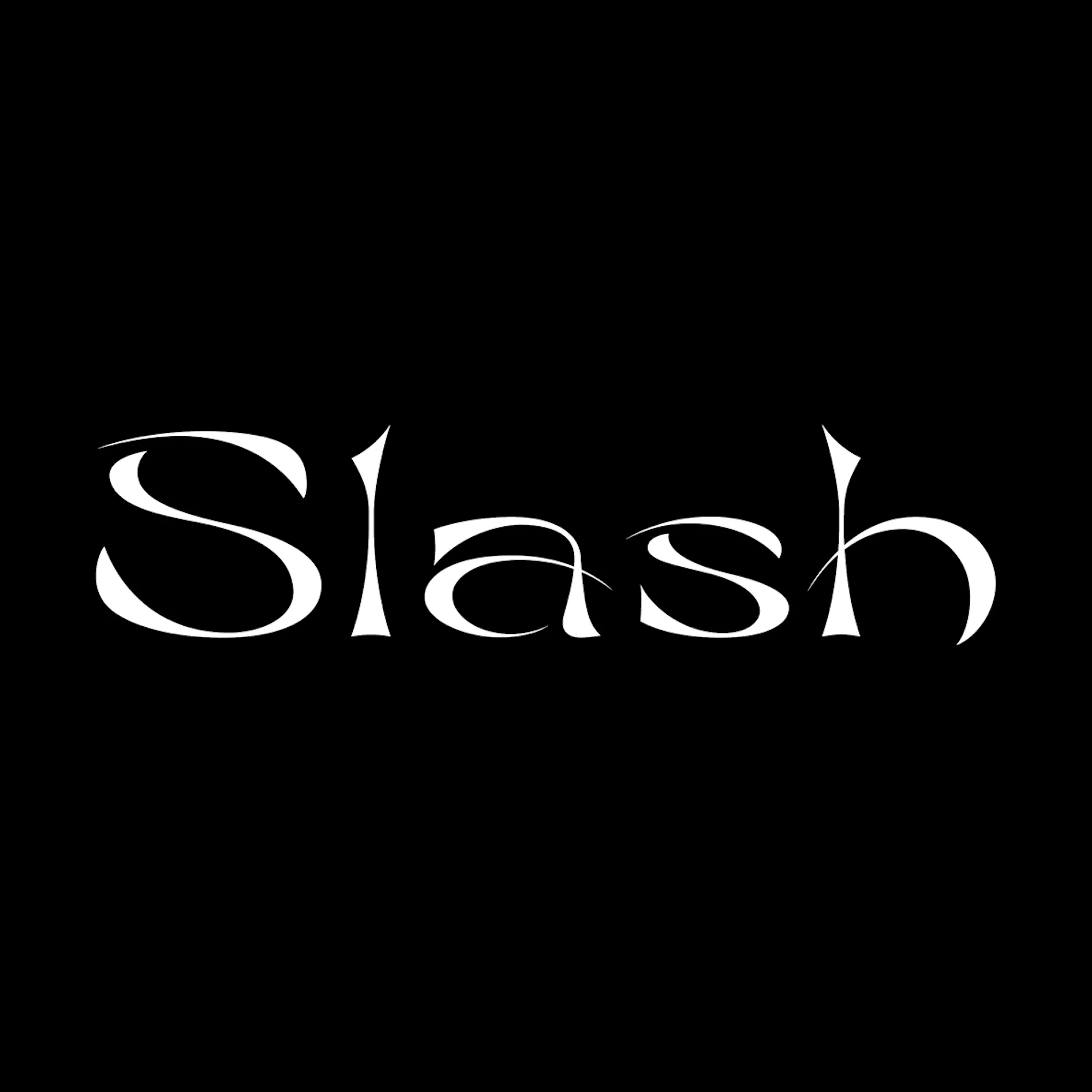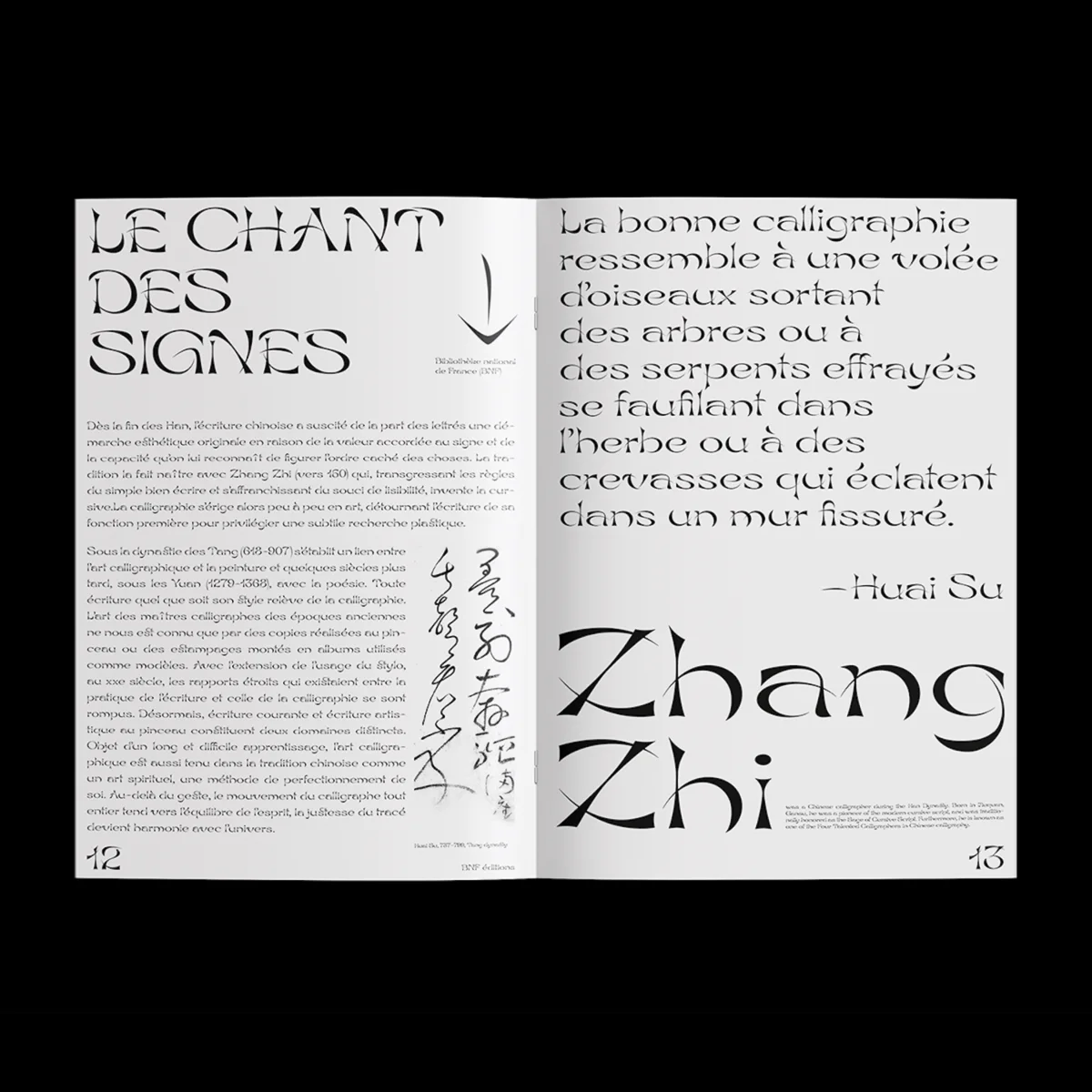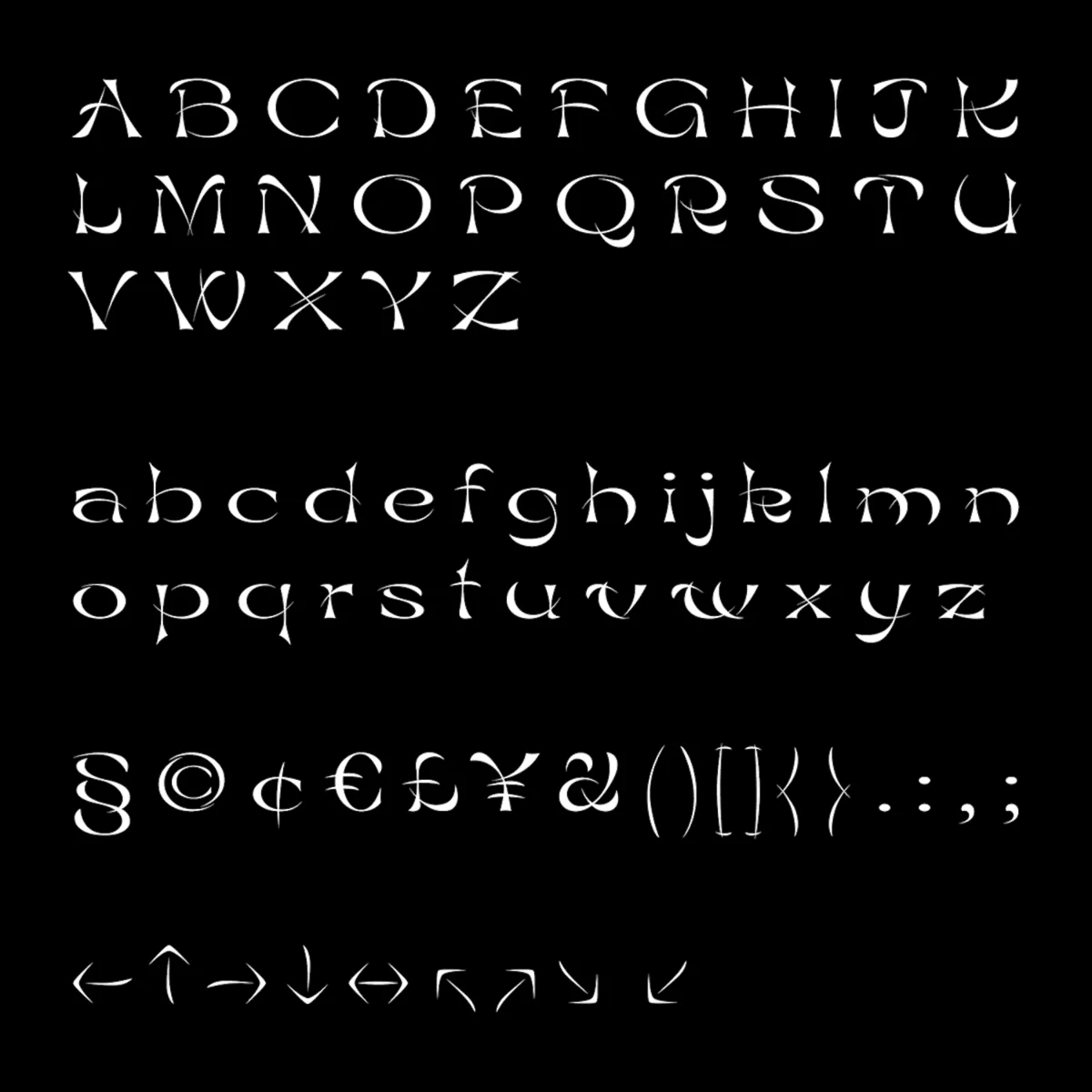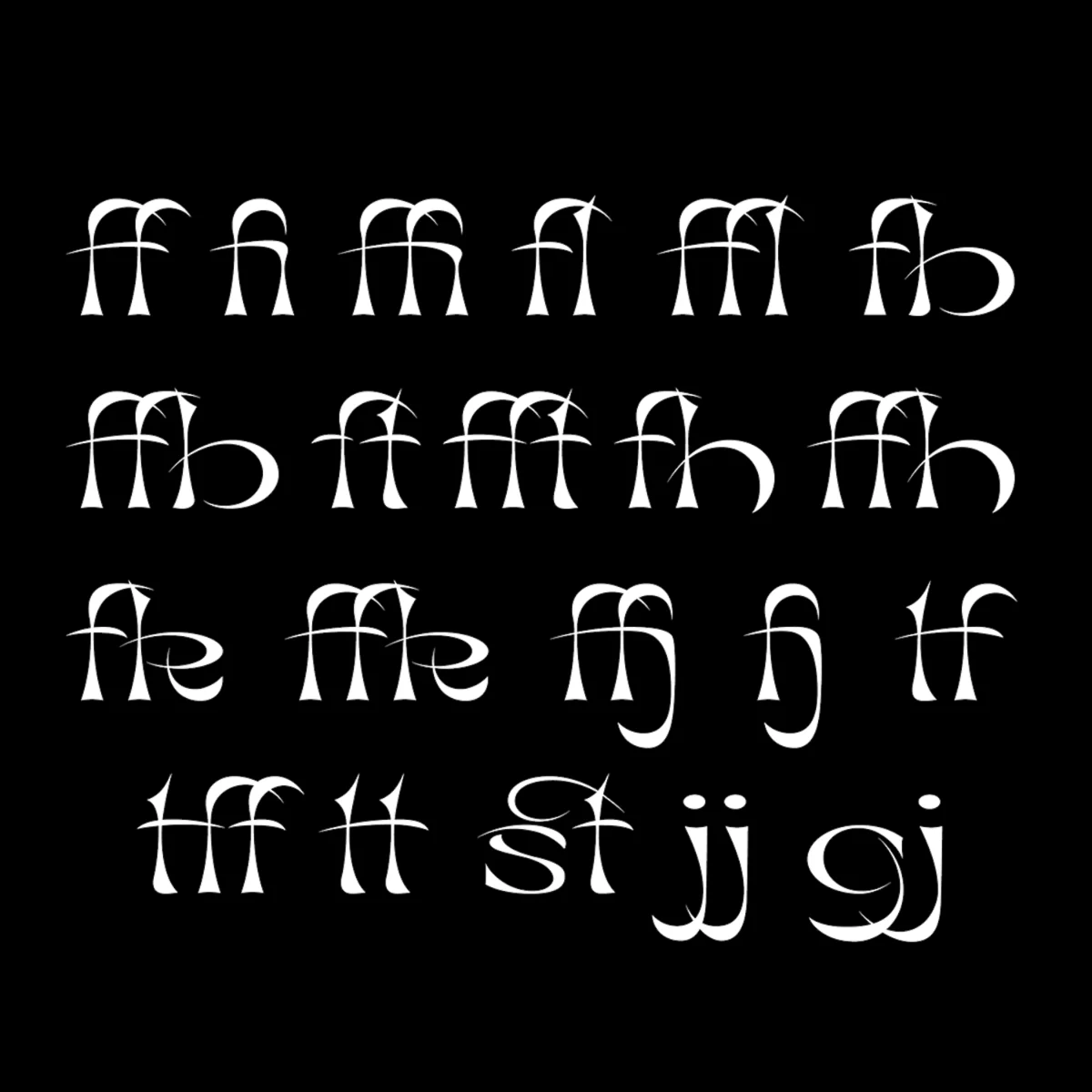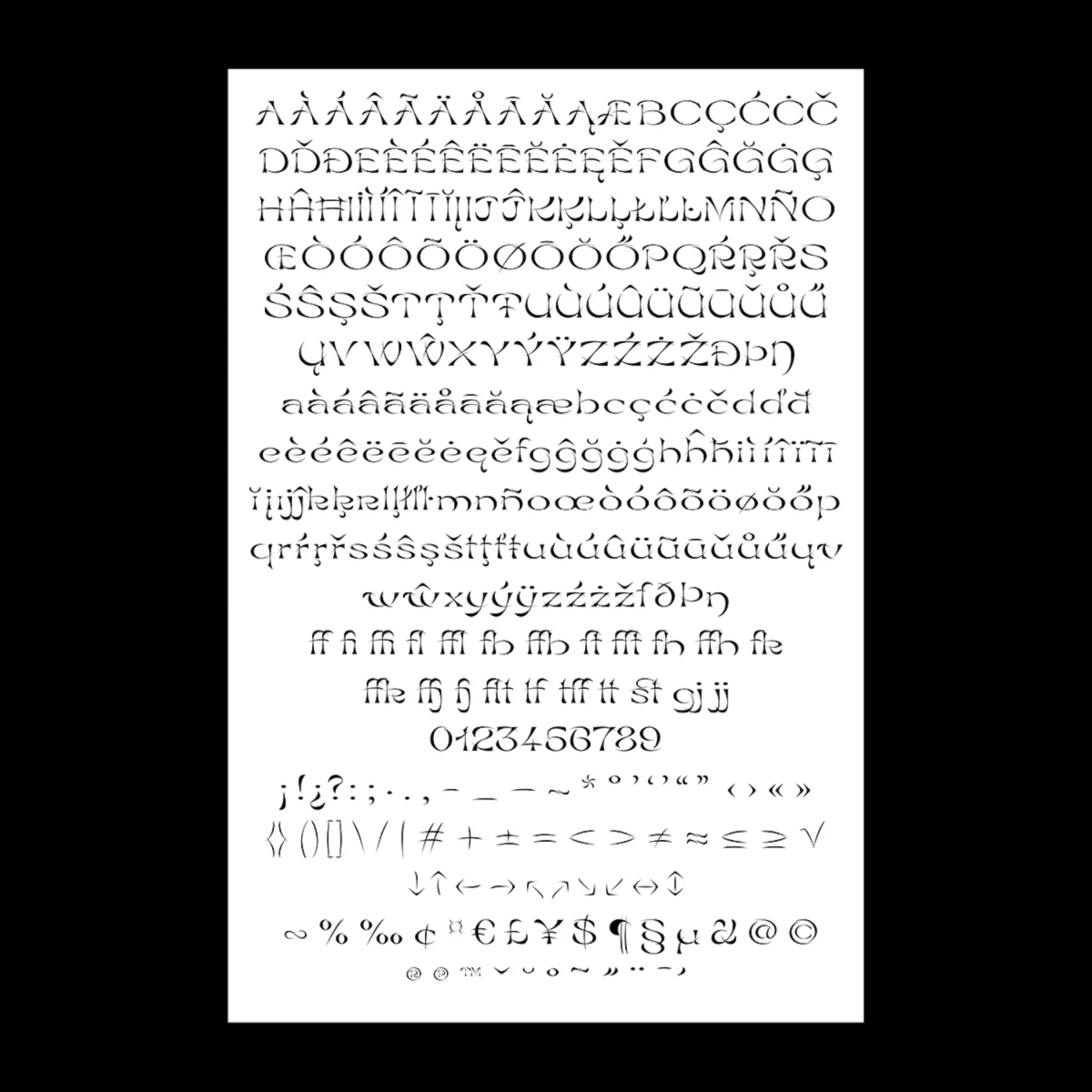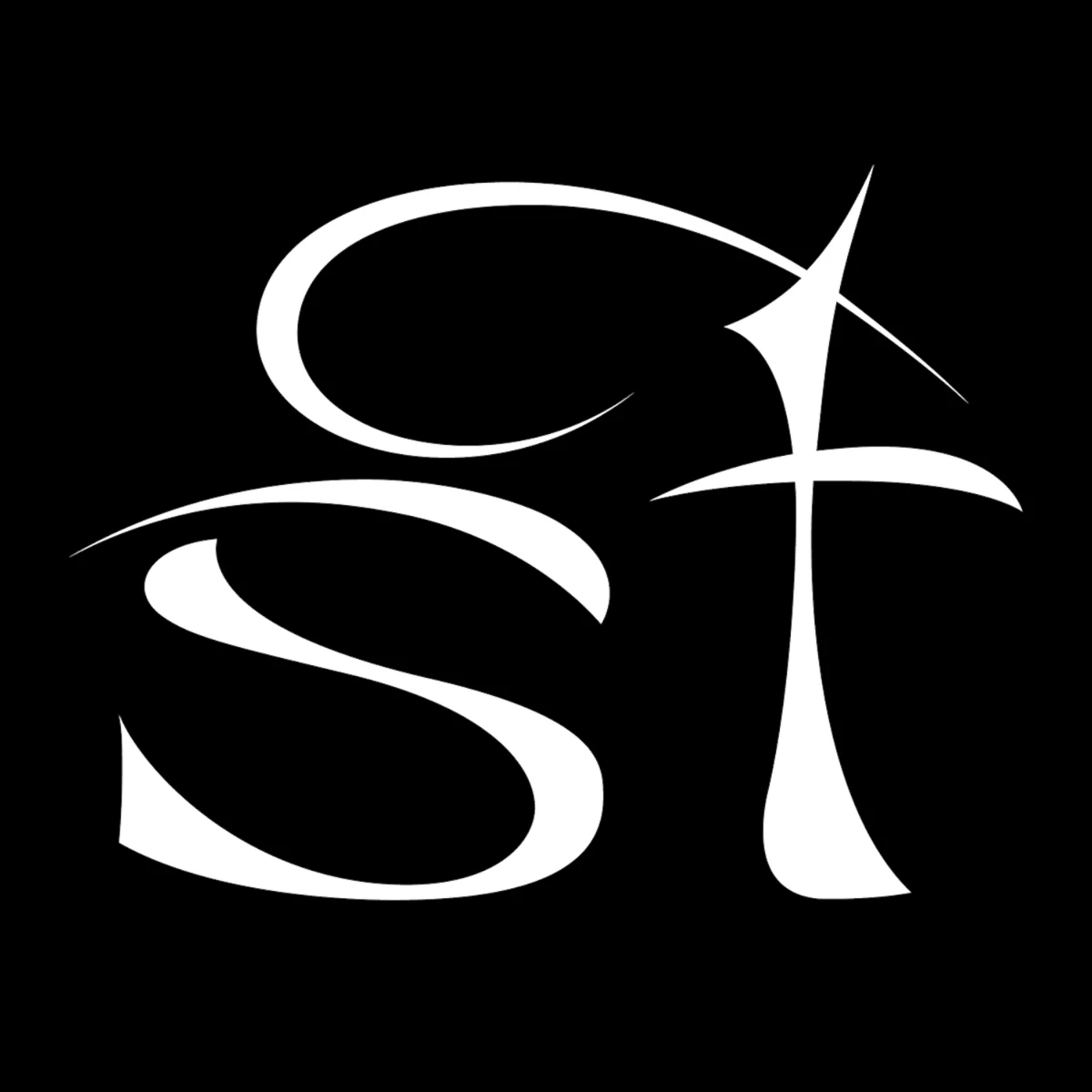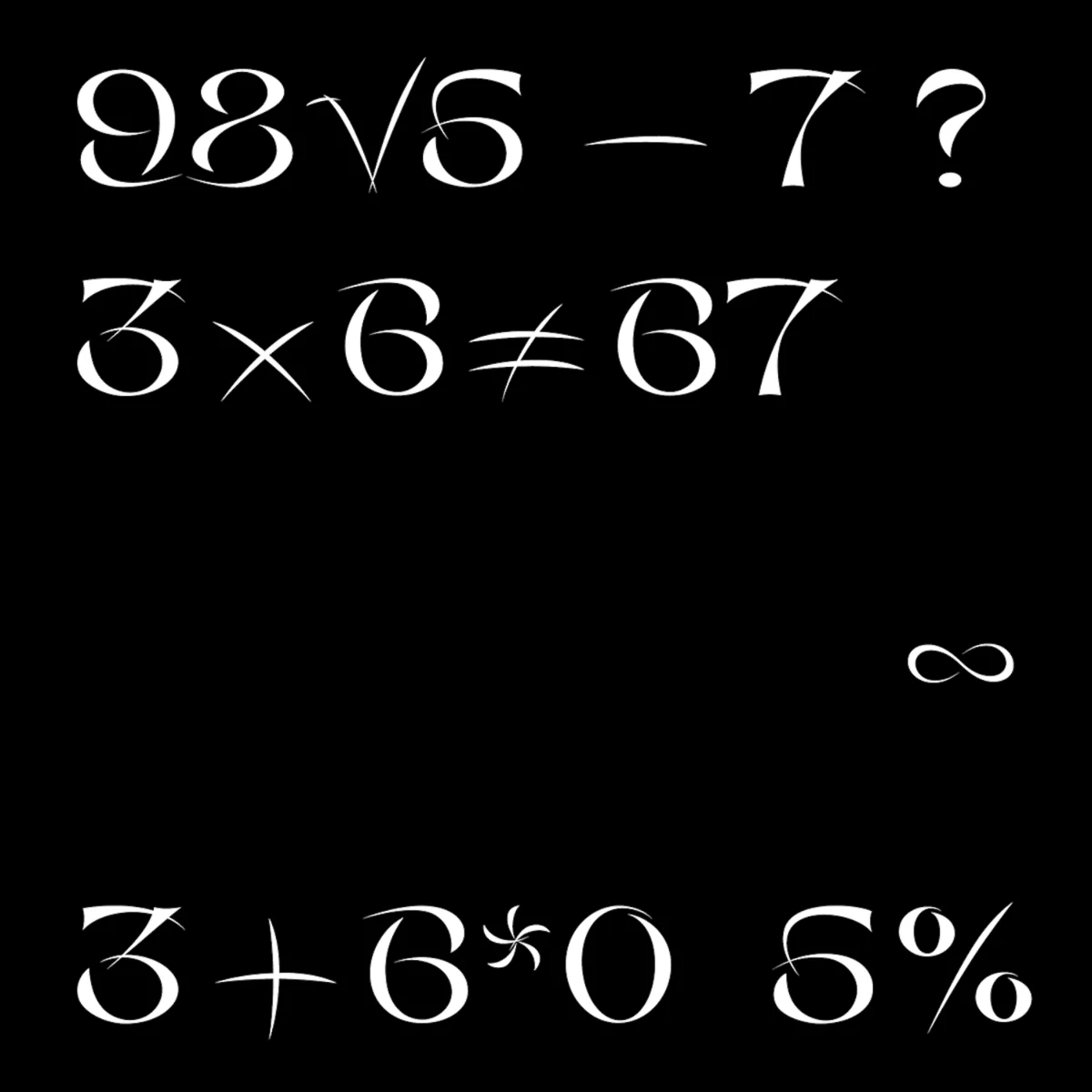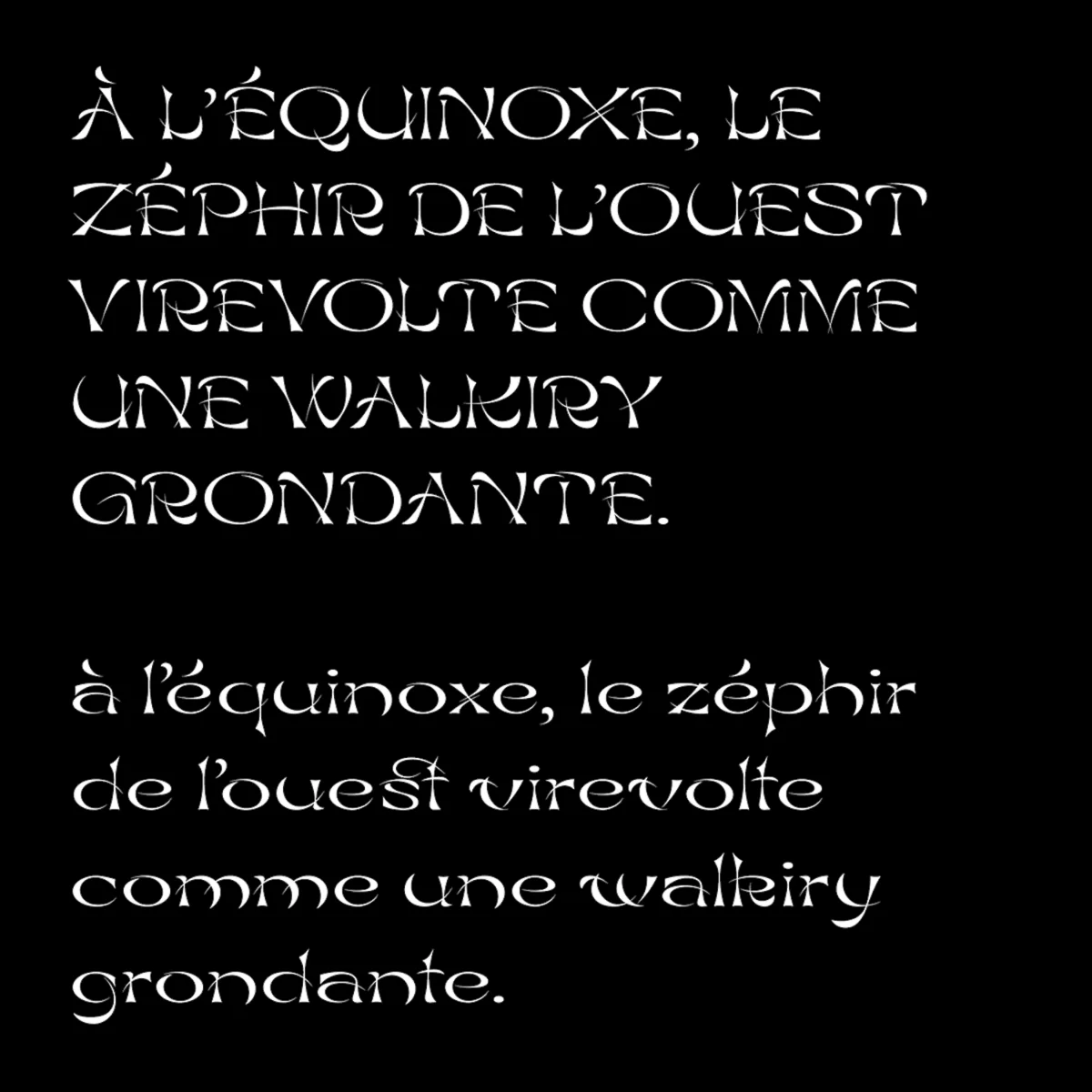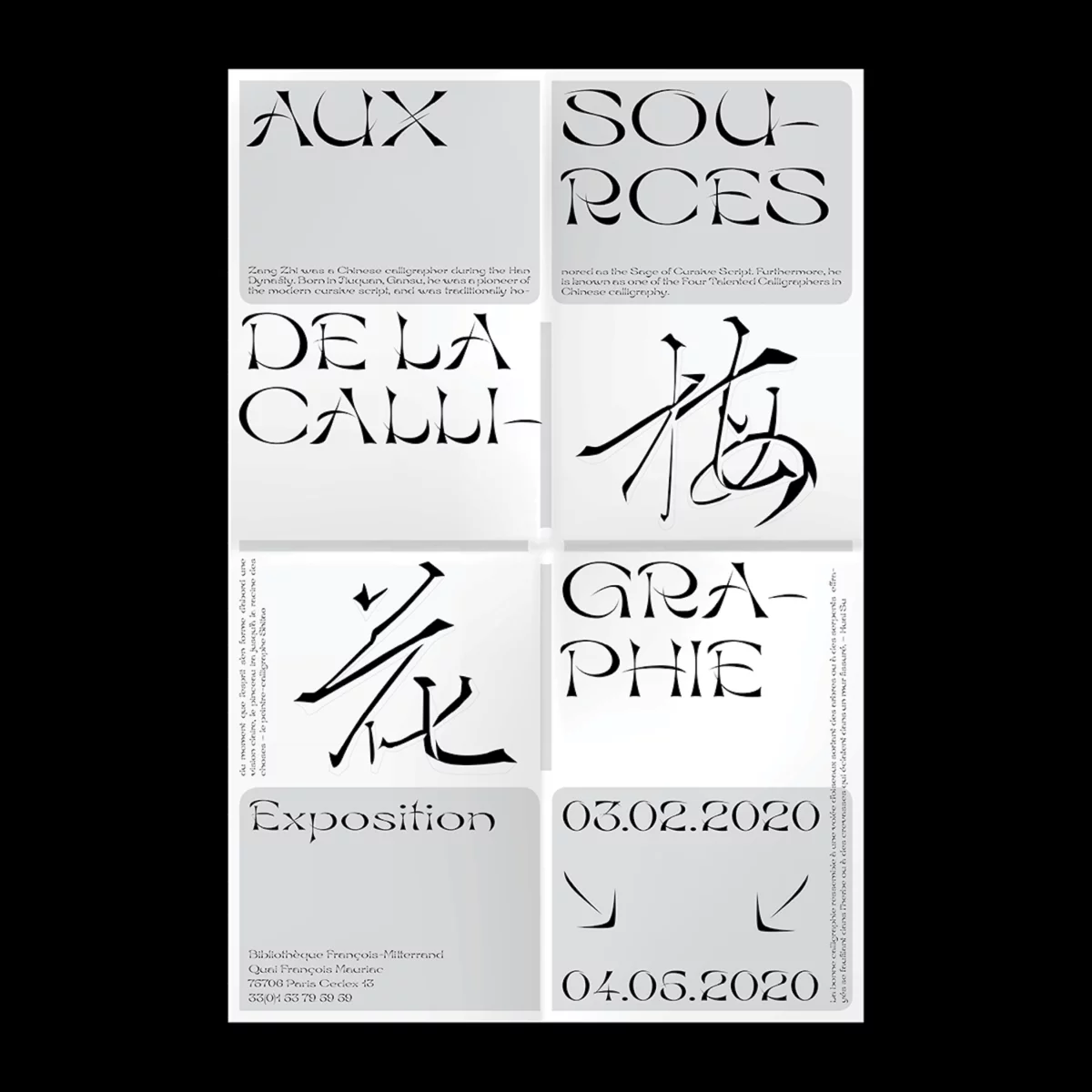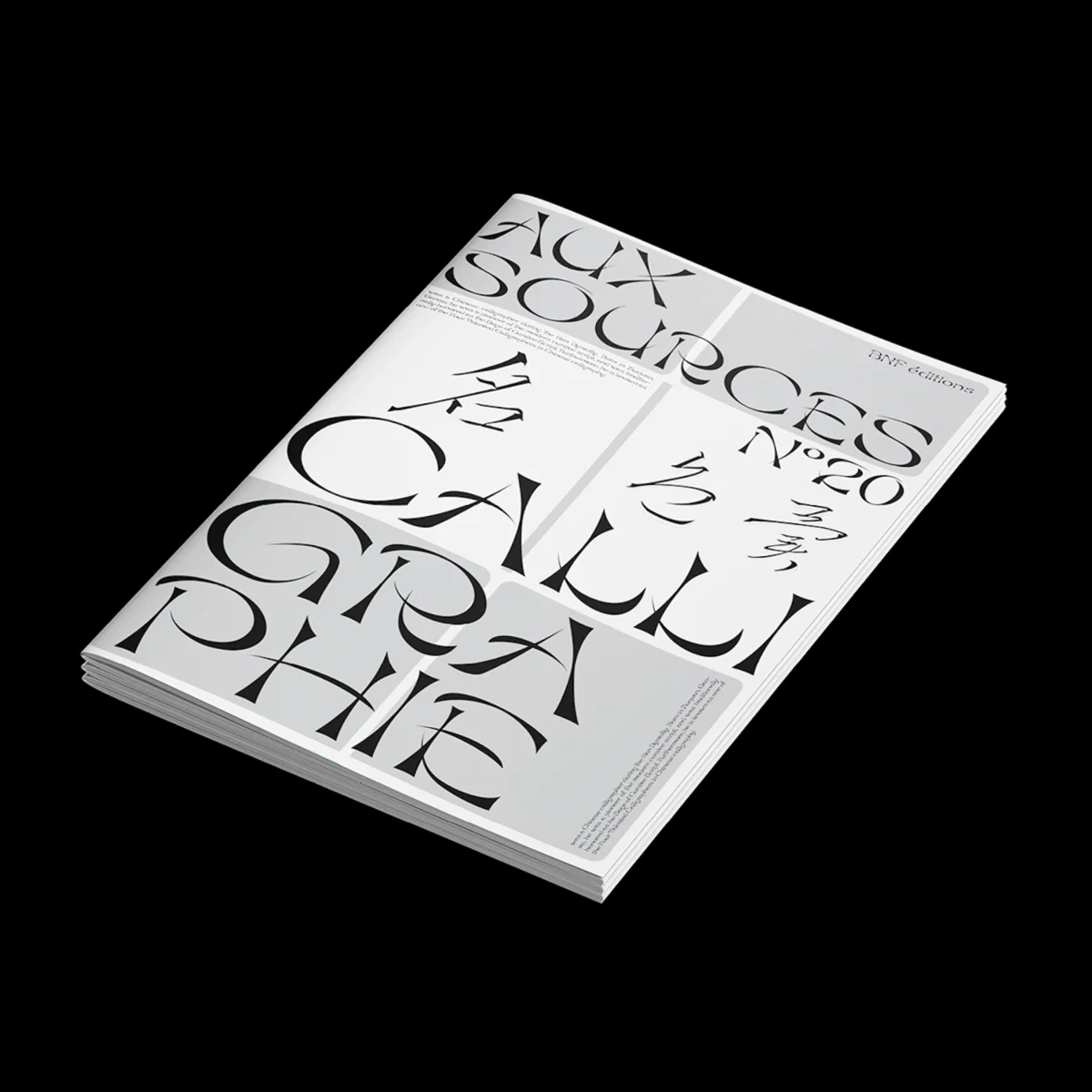
Independent Graphic Designer, Adrien Jacquemet (@adrien.jacquemet) is the creator of the stunning font, Slash. As brand new release (now available through Type Department) it is currently produced in one singular style: Carved. A commendable design feat, Slash is a refined and energetic take on ancient craftsmanship in the digital age; tethering an imaginative rope between practices of Chinese calligraphy engravings on steles and the design sensibilities of today.
With the aim to translate the precarious and slightly unpredictable nature of hand carving, Slash is constructed through sharp edged, slanted, independent strokes which intersect and collide minimally to collect the shapes of the Latin alphabet. The curves of each stroke govern the aesthetic presence of Slash, imbuing it with the tactile energy of brush strokes and slivers of stone as they’re carved away; meaning its connection to the tactile past of ancient craftsmanship feels both sensitive and direct.
Slash doesn’t include any straight lines, nor a solid stem, and so visually, it relies very much on the minimal intersections between the strokes to string it together with coherence. It also means that there’s a real feeling of fluidity and liberation surrounding the font; it uses an extremely light touch to communicate a wealth of sensory and aesthetic knowledge. It very much feels that Jacquemet’s impeccable understanding of what to include – and crucially, what not to include – is the key to Slash’s success.
Having decided to include a maximum of just three intersections per glyph, Slash is suited to both display and body text. This allows for the integration of Chinese calligraphic aesthetics into a Latin character set in a way which is not overly complex, but which strongly echoes the shapes and and tone of Chinese calligraphy.
Slash is an exciting and extremely versatile font which falls in line with the notion of less is more. It is sleek, minimalistic and functional whilst being equally compelling and effective. Its visual mirroring of stone carvings is done with deep sensitivity; sparingly using its space and resources to call back to more ornate crafts, without overcrowding the senses. Suitable for a wide variety of uses, we can’t wait to see Slash put to work.